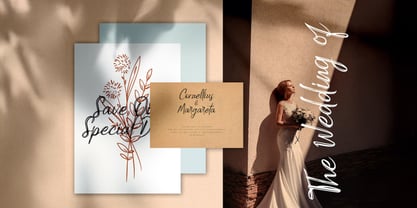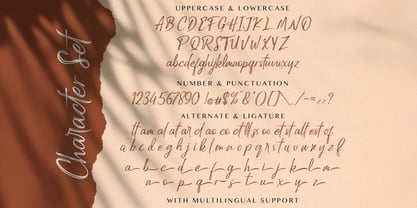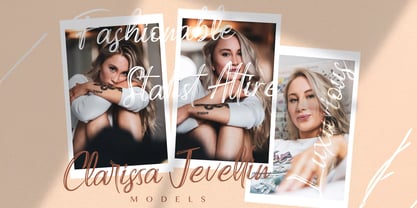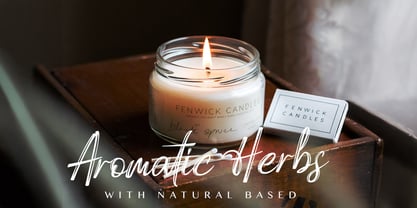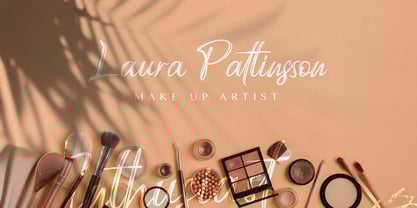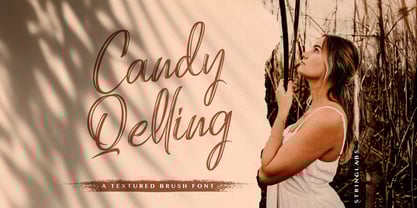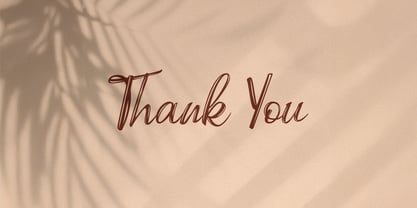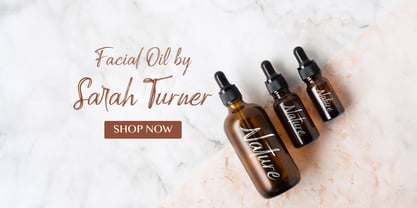
Candy Qelling
by Stringlabs Creative Studio
The Candy Qelling Font Family was designed by Virgiawan Listanto and published by Stringlabs Creative Studio. Candy Qelling contains 1 styles. More about this family
Candy Qelling is a vibrant and playful brush script font that brings a fun, energetic flair to your designs. Whether you're creating for a candy brand, event promotion, or anything that needs a lively, cheerful feel, this font is sure to stand out.
Designers: Virgiawan Listanto
Foundry: Stringlabs Creative Studio